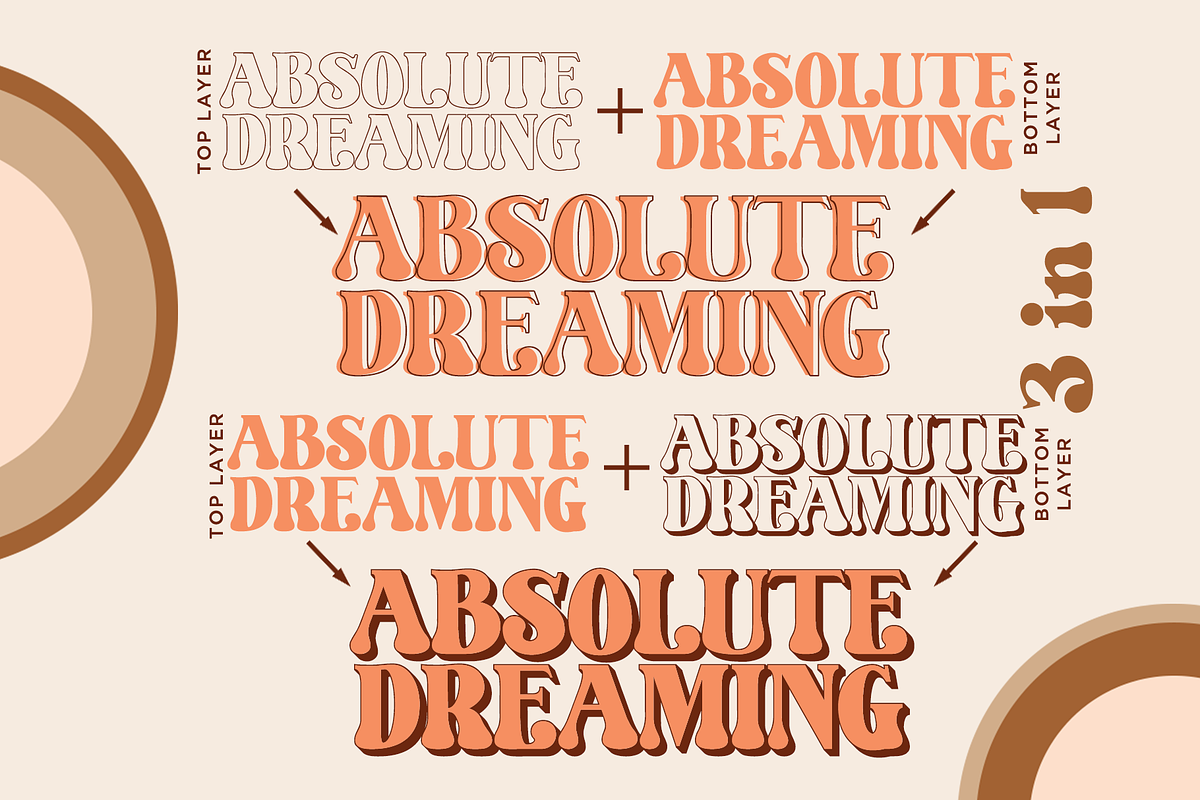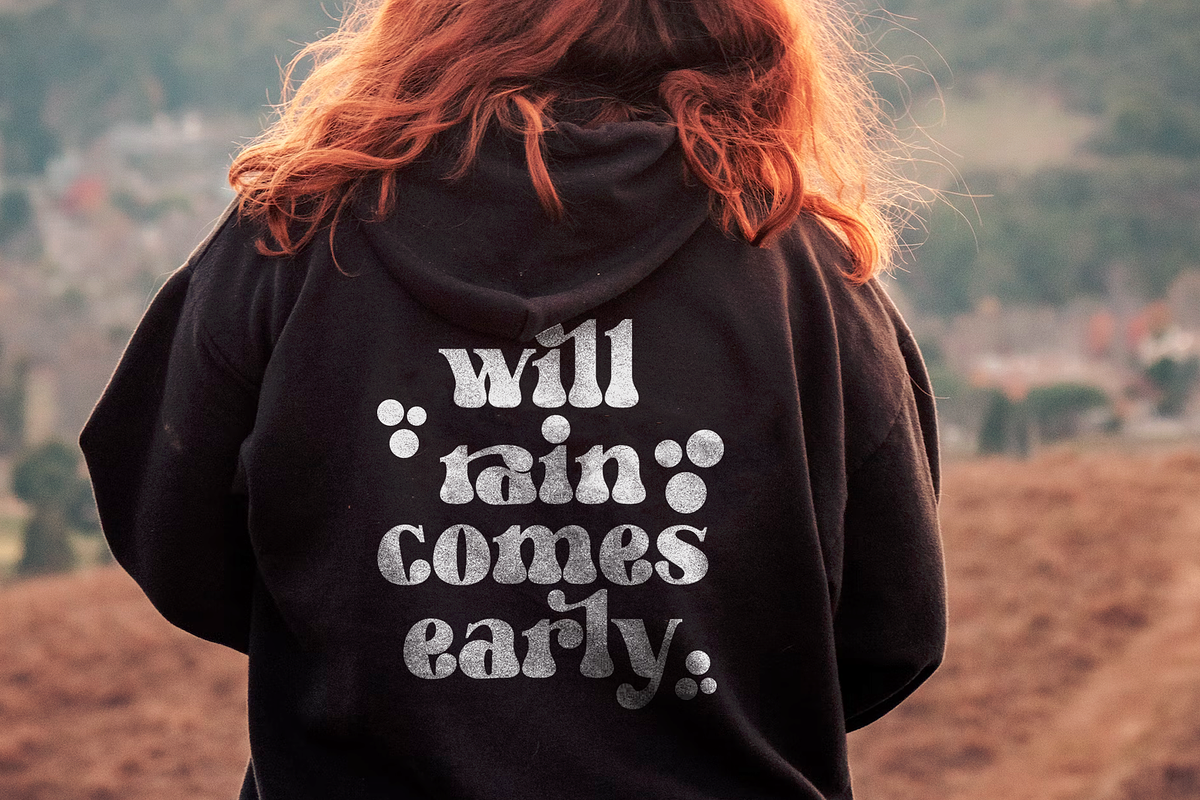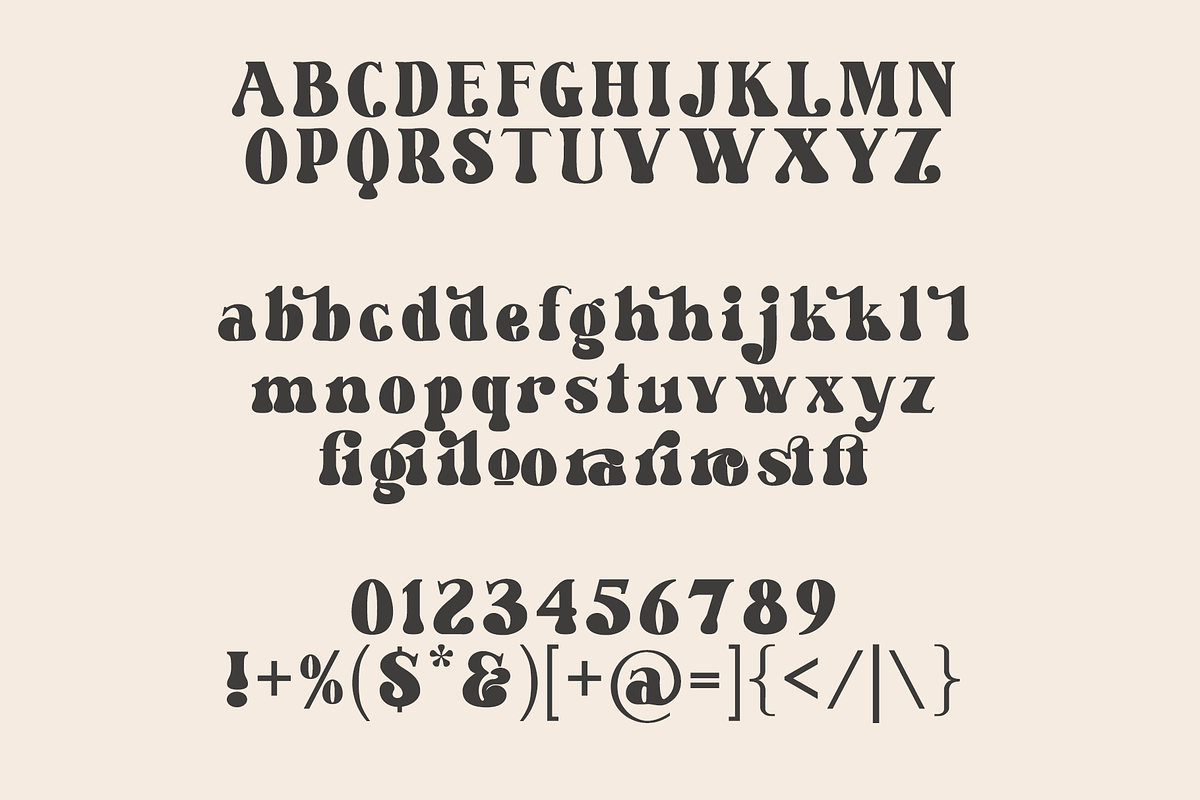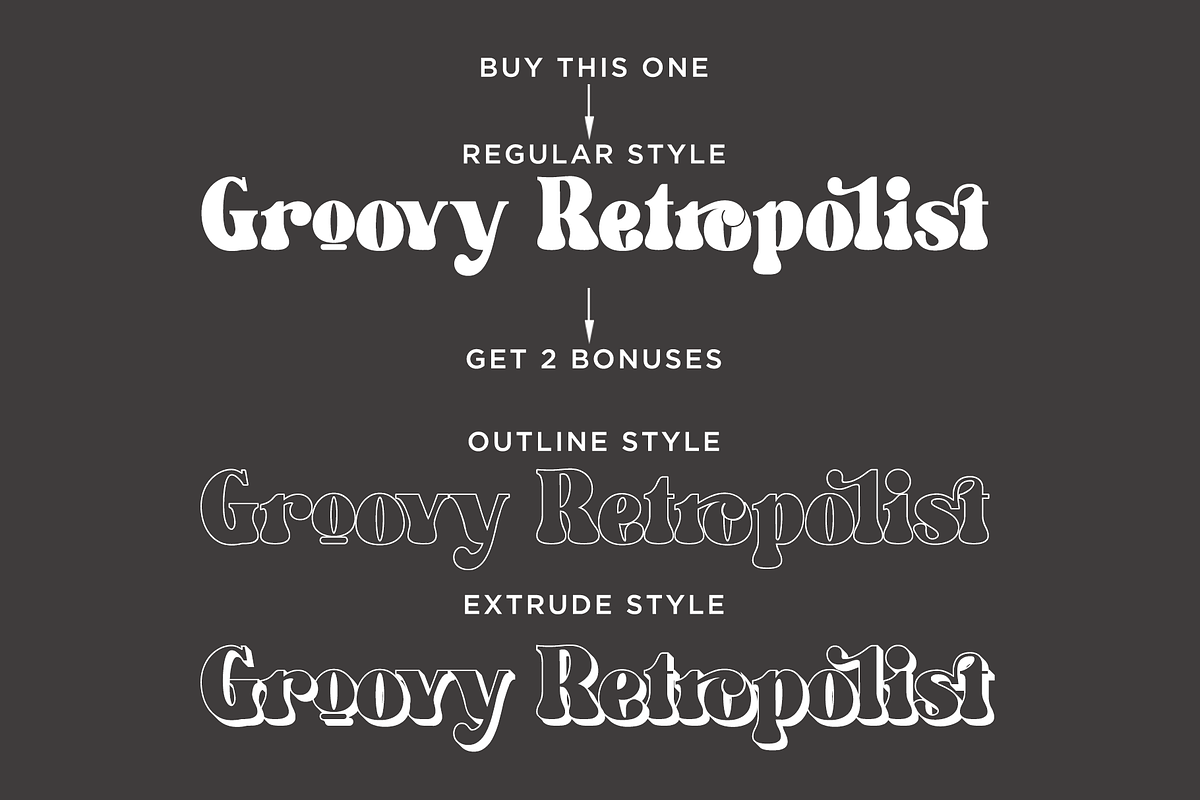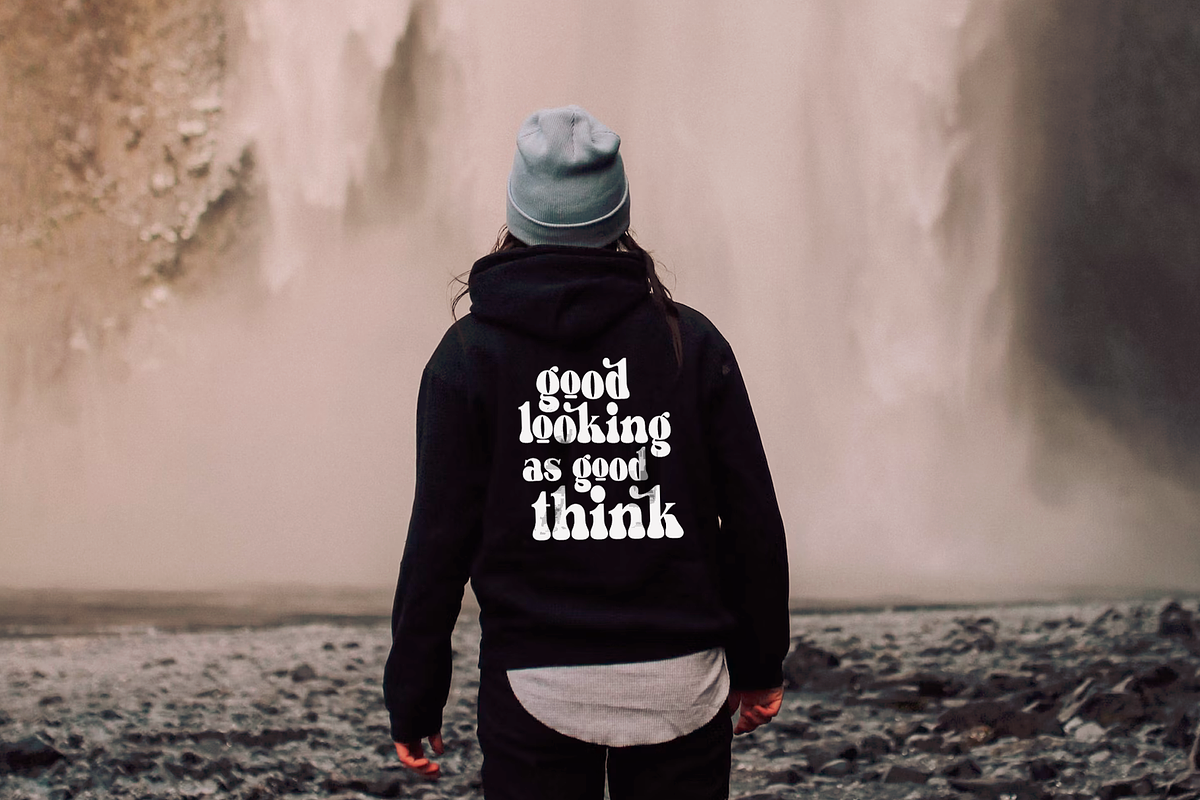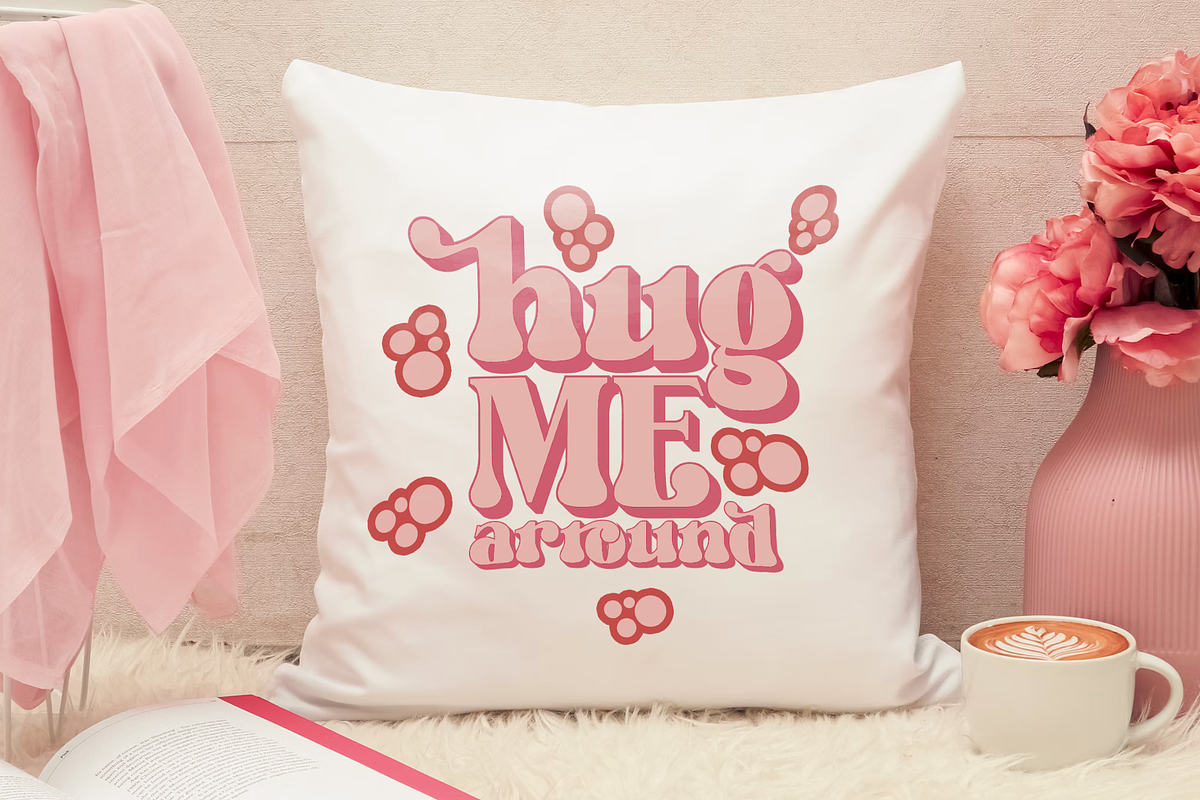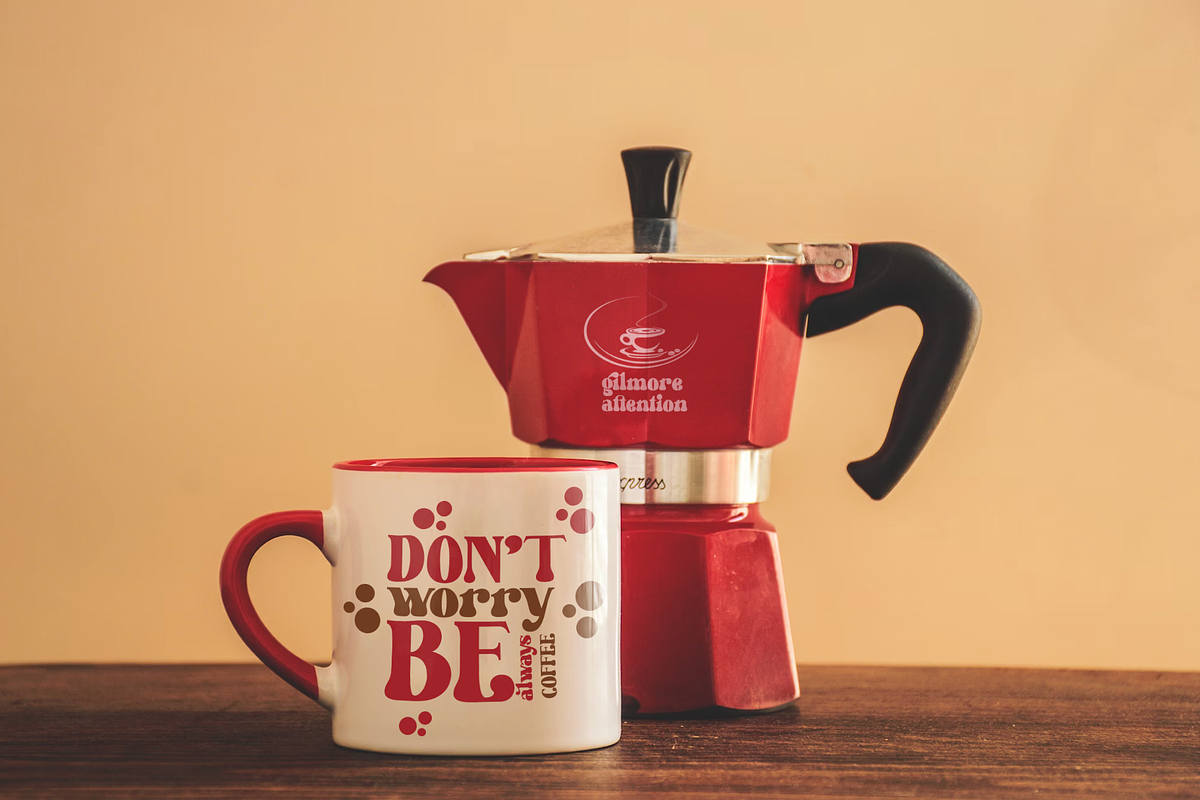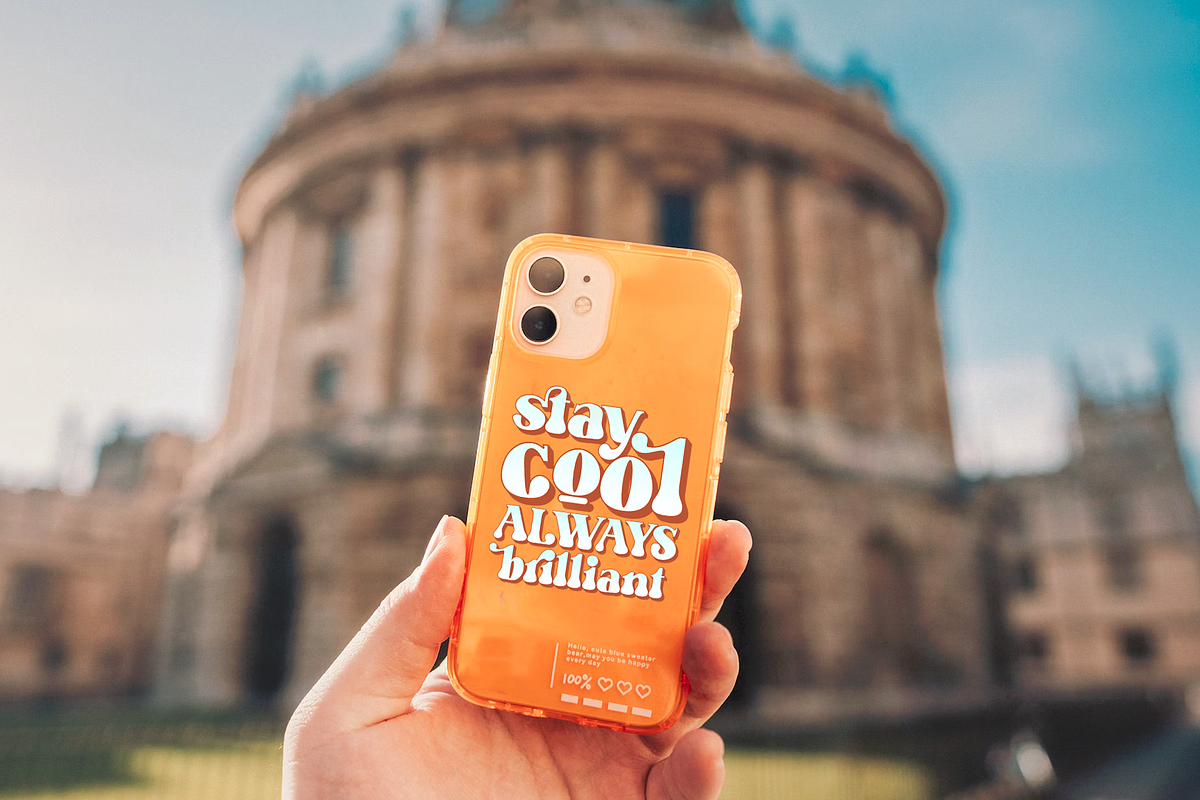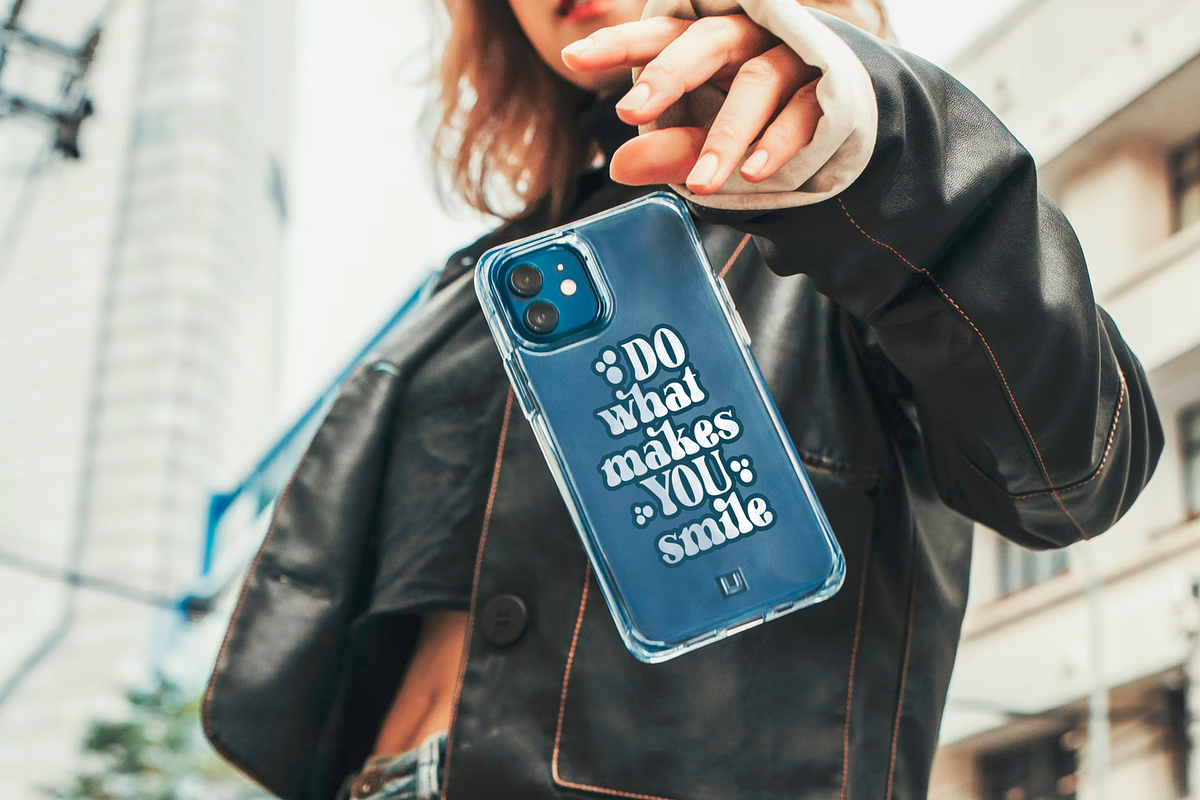
Groovy Retropolist Groovy Retro Font
Groovy Retropolist FONT A hand-drawn, bubbly font with a groovy look!
There are three fonts included :
- Outline
- Extrude.
You can use these three fonts to create your own retro quotes and words!
- Regular version
Groovy Retropolist is perfect for: shirts, retro designs, procreate, stickers, logos, branding, greeting cards, Cricut projects, posters, magazines, social media, prints and more!